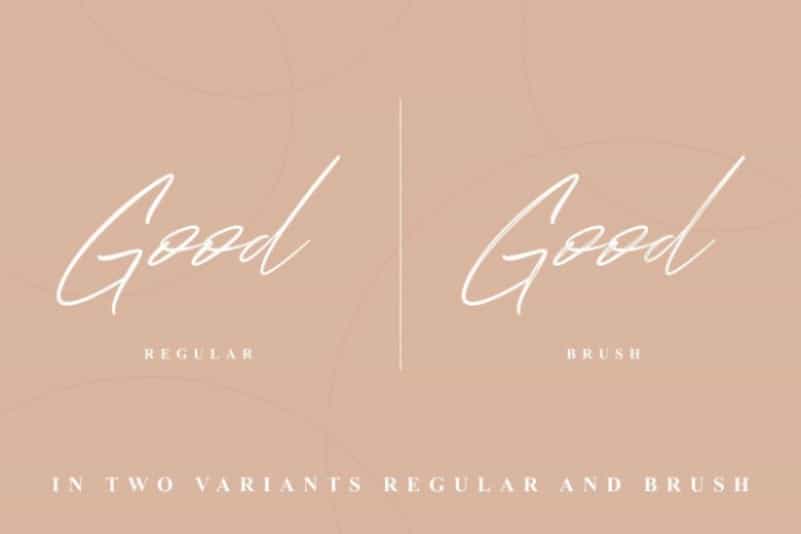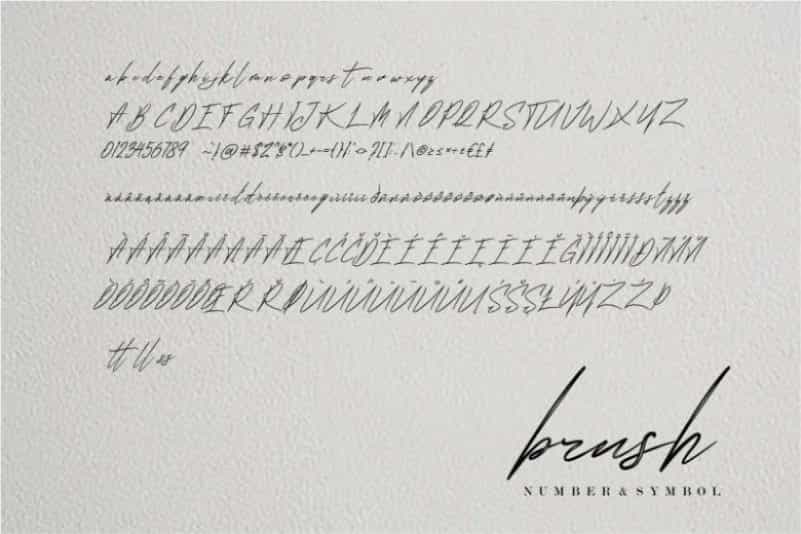
Jillfester Font has two styles : the clean and textured brush glyphs. This font will be great for many projects : The font can be used in different industries such as: Creative, art, fashion, travel and hotel. It is easily accessible to use the fonts for branding purposes or even on promotional materials like stationery or business cards.